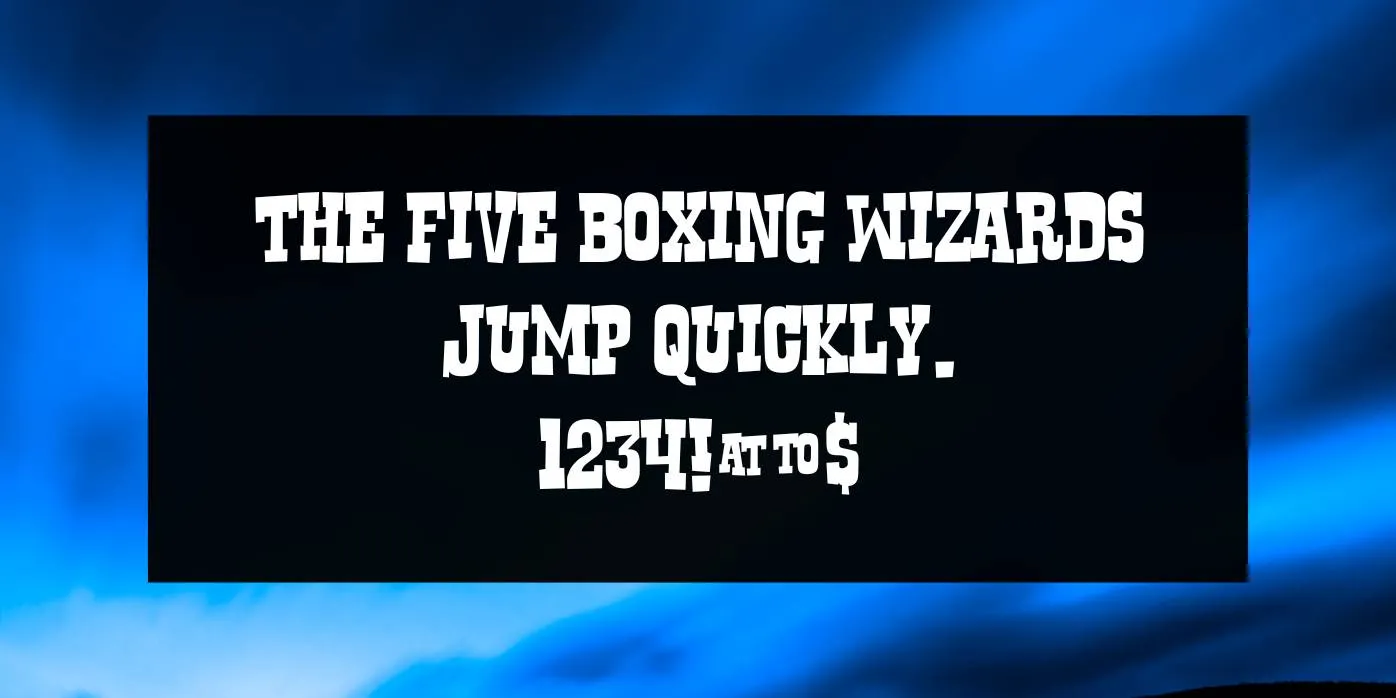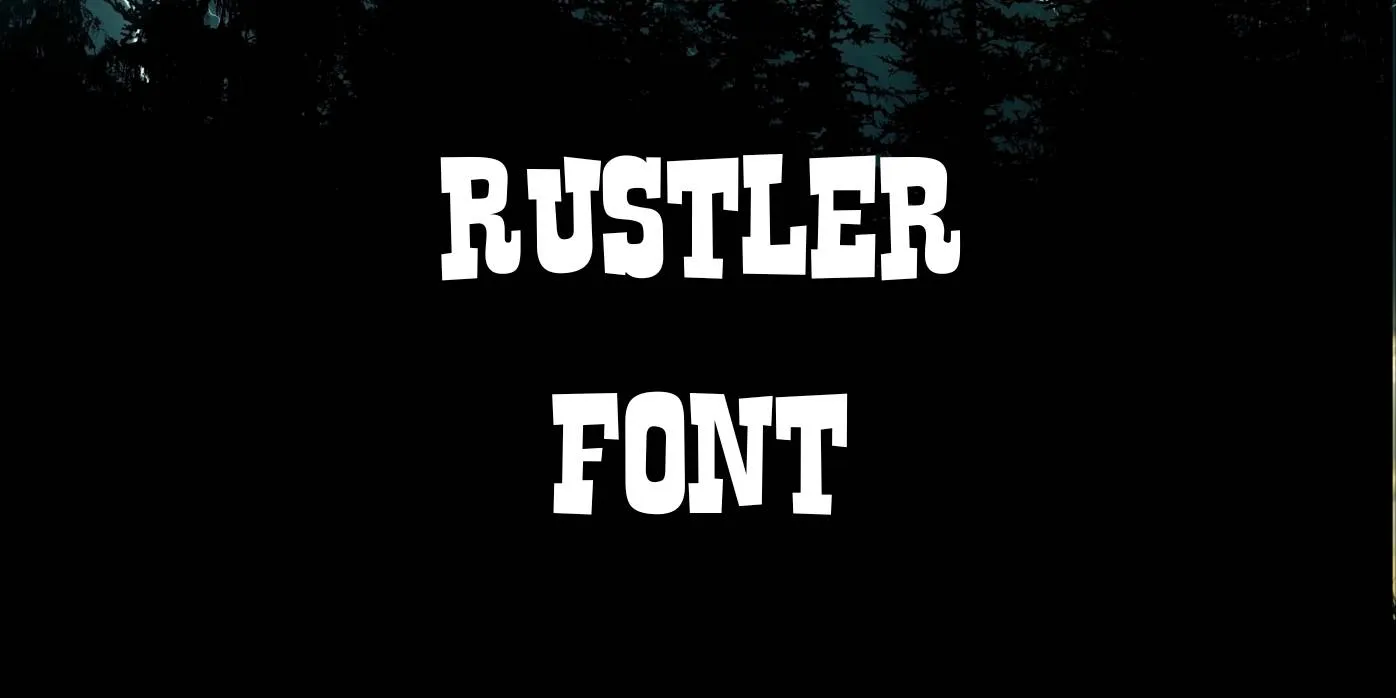
Rustler Font
Introducing you to a fancy-type texture named Rustler Font. It was designed by the Fontalicious. The characters of this typeface are confused-bold, readable, and attention-catching. The characters of this typeface support digits, letters, punctuation, and special letters.